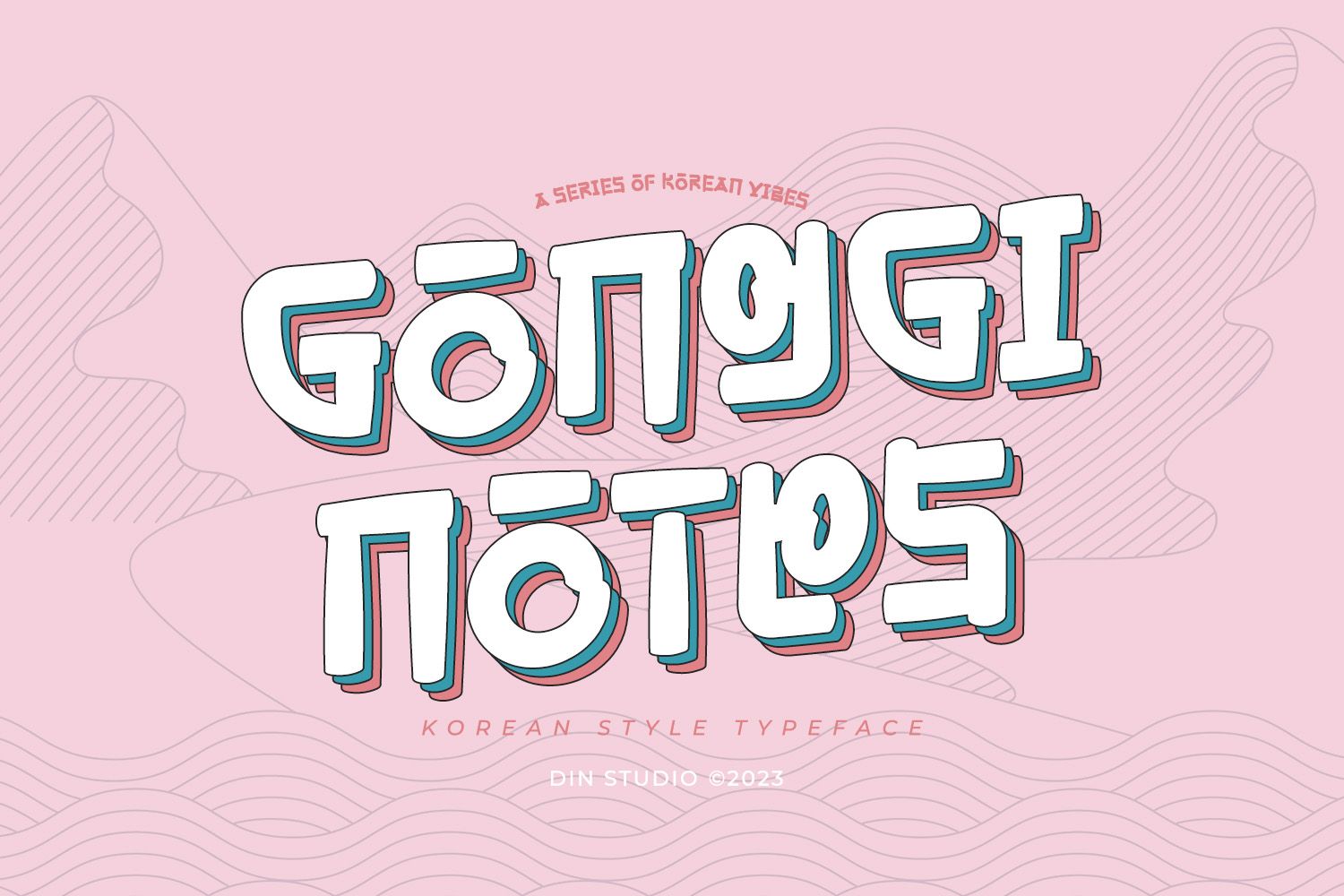
Have you ever wondered how a single style of writing can convey so much emotion and history? The art of calligraphy has been captivating cultures for centuries, and with the advent of digital tools like a Korean calligraphy generator, exploring these styles has never been easier. What draws people to seek out a Korean calligraphy font? Is it the elegance, the history, or perhaps the chance to connect with something greater than themselves?
With a Korean font generator, you can delve into the dynamic world of calligraphy. This journey brings together the serene beauty of Zen calligraphy and the historical depth of Tibetan calligraphy. Understanding these styles and using modern tools to recreate them can be both a creative outlet and a meditative practice. Let’s explore how these elements intertwine and how you can use a Korean calligraphy font to enhance your own projects.
Understanding Korean Font Generators
What is a Korean Font Generator?
A Korean font generator is an online tool or software that allows you to create text in various Korean calligraphy styles. These generators offer flexibility and creativity, enabling you to experiment with different fonts that capture the essence of traditional Korean writing.
Benefits of Using Korean Font Generators
Using a Korean font generator gives you access to a wide array of styles, from classic to modern. These tools are perfect for personal projects, design work, or simply exploring the art of Korean calligraphy. They save time and provide an opportunity to engage with cultural art forms without needing advanced skills in traditional calligraphy techniques.
Exploring Zen Calligraphy
The Philosophy Behind Zen Calligraphy
Zen calligraphy is more than just an art form; it embodies a philosophy of mindfulness and simplicity. It encourages you to focus on the present moment, letting your brushstrokes flow naturally. This practice is a form of meditation, where each stroke is deliberate and reflective of inner peace.
Tools and Techniques in Zen Calligraphy
Traditional Zen calligraphy requires brushes, ink, and paper. The focus is on the fluidity of motion and the authenticity of expression. Digital tools now allow you to experiment with these techniques through a Korean calligraphy generator, where you can mimic the graceful strokes of ink on paper.
Tibetan Calligraphy: An Ancient Art Form
Historical Context of Tibetan Calligraphy
Tibetan calligraphy is steeped in spiritual and cultural significance. Historically, it has been used to transcribe sacred texts and mantras, making it an integral part of Tibetan religious practices. The art form has evolved over centuries, maintaining its essence while adapting to modern influences.
Modern Use of Tibetan Calligraphy
Today, Tibetan calligraphy is appreciated worldwide for its aesthetic beauty and spiritual depth. It is often seen in art galleries, spiritual retreats, and digital platforms. Using a Korean font generator helps you explore this ancient art form by providing styles inspired by traditional Tibetan scripts.
Using a Korean Calligraphy Generator
How to Use a Korean Calligraphy Generator
To use a Korean calligraphy generator, start by selecting your desired font style. Input the text you want to transform and adjust the settings to suit your preference. Whether you’re crafting a personal project or a professional design, these tools offer flexibility in style and presentation.
Popular Korean Calligraphy Fonts
There are numerous Korean calligraphy fonts available, each with its unique charm and flair. Popular options include fonts that mimic traditional brush strokes and those that offer a modern twist. Experimenting with different fonts allows you to find the perfect match for your creative vision.
Choosing the Right Korean Calligraphy Font
Factors to Consider When Choosing Fonts
When selecting a Korean calligraphy font, consider the purpose and context of your project. The font style should complement the overall design and convey the desired tone, whether it’s elegance, simplicity, or boldness. Pay attention to readability and aesthetic appeal to ensure your message is effectively communicated.
Top Korean Calligraphy Fonts to Try
Some of the top Korean calligraphy fonts include those inspired by traditional Korean scripts and contemporary designs. Popular choices are known for their balance between artistic expression and functional readability. Explore various options to find the font that resonates with your artistic goals.